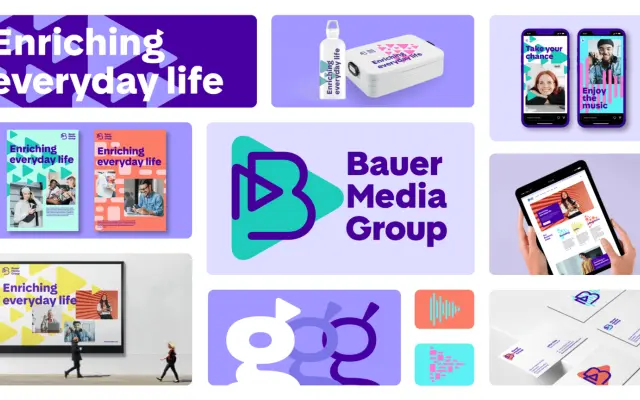
Bauer Media Group
Character Type · Henning Skibbe, Oleksandr Parkhomovskyy · 2023
A bespoke variable font family designed for Bauer Media Group's 2023 global rebrand, with letterforms that quietly embed the brand's triangular play-button motif.
Designed by Henning Skibbe and Oleksandr Parkhomovskyy at Character Type in partnership with Mutabor, this six-style family runs from Regular to Bold with matching italics and ships as a variable font. The play-button triangle from the Bauer Media Group logo is worked into the G and g glyphs, becoming more pronounced as weight increases, while rounded stroke junctions throughout echo the logo's rounded button form. It is a measured piece of brand typography that ties identity detail to type without resorting to novelty.
The typeface is a custom humanist sans-serif with friendly, open letterforms designed for brand communication; rounded stroke terminals and distinctive play-button-derived details in the G and g place it firmly in the humanist sans tradition.